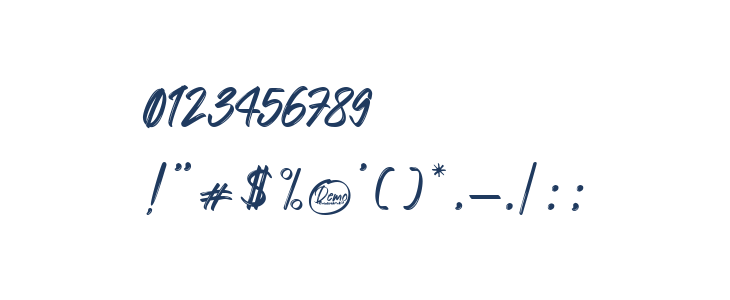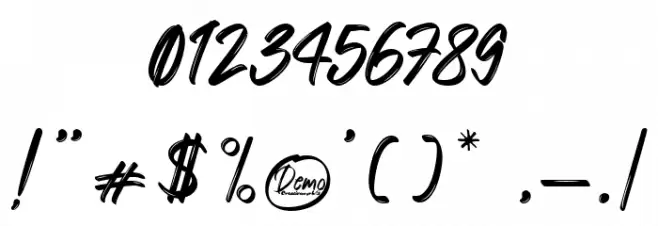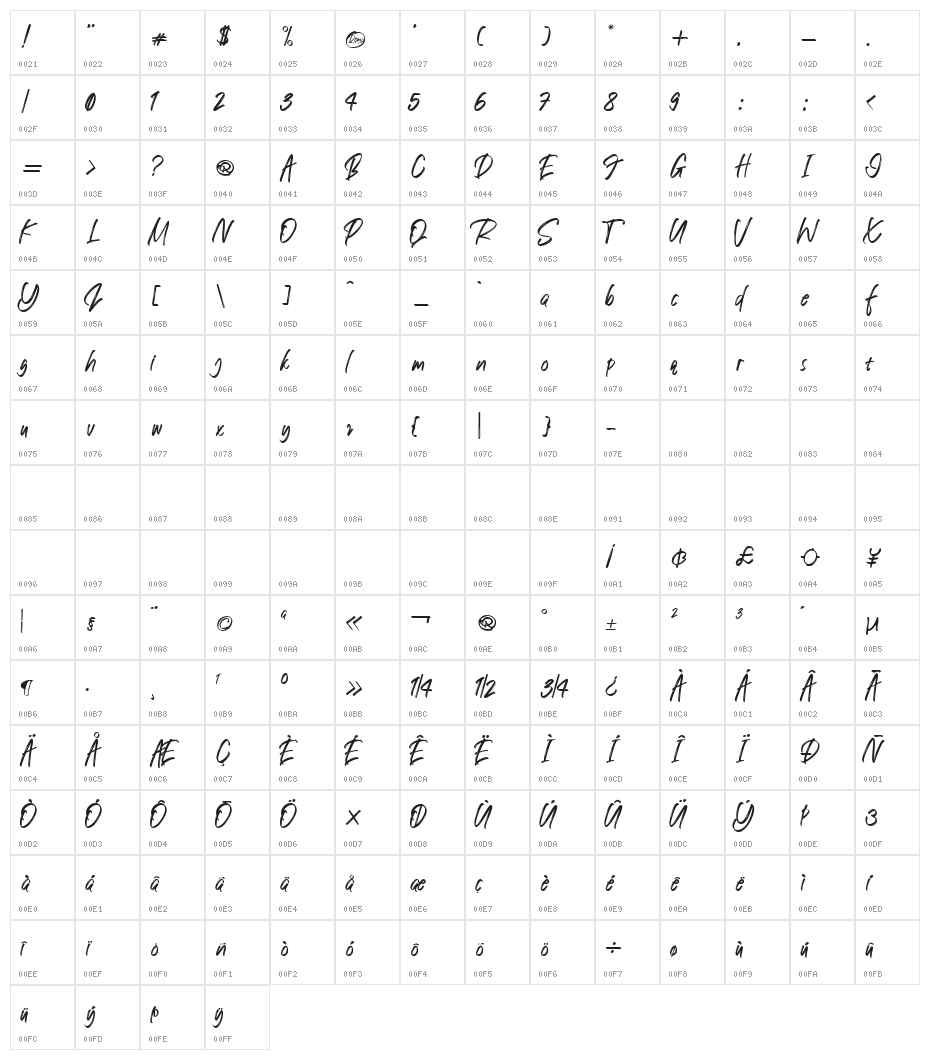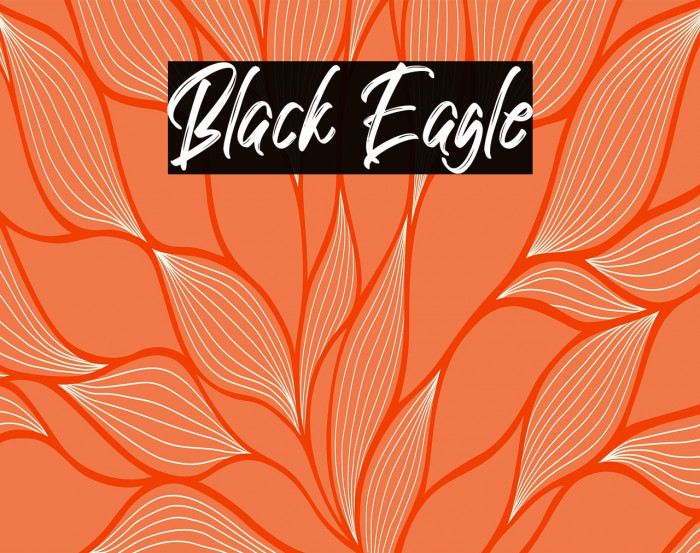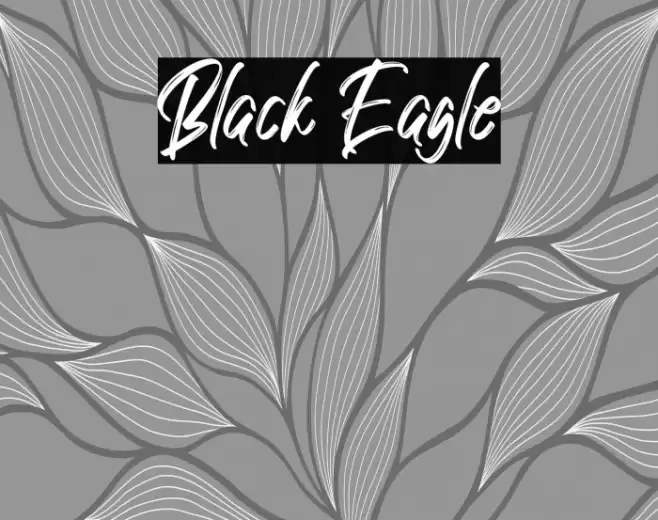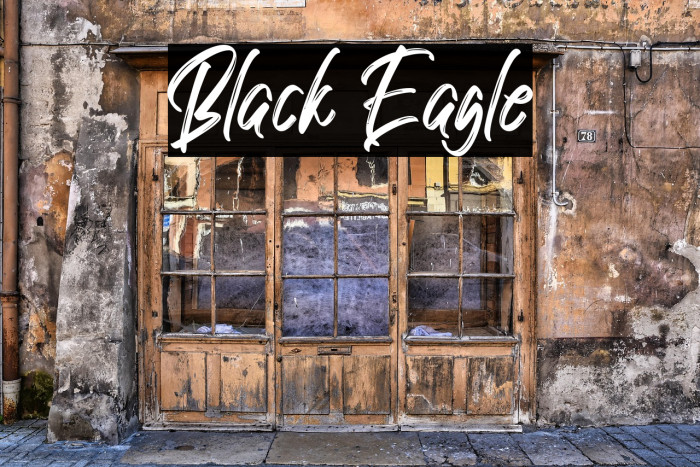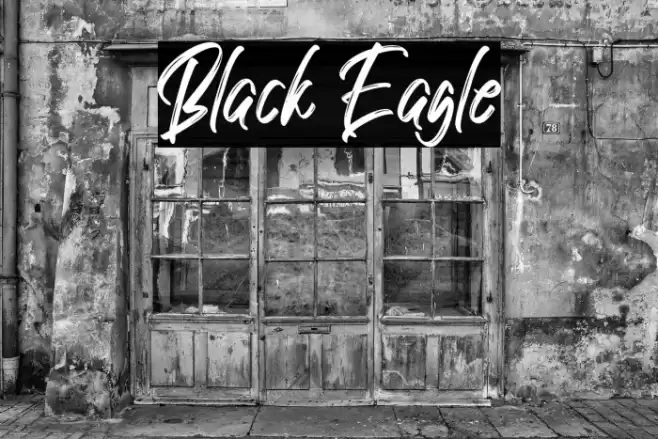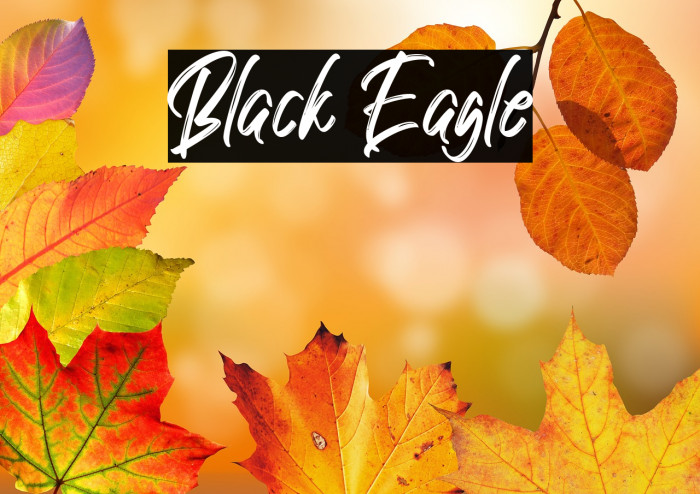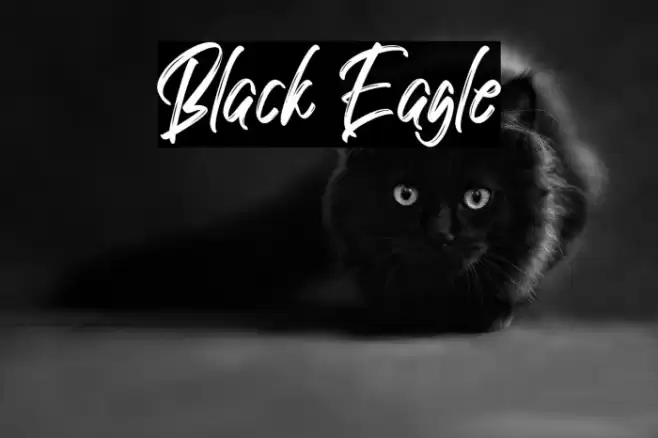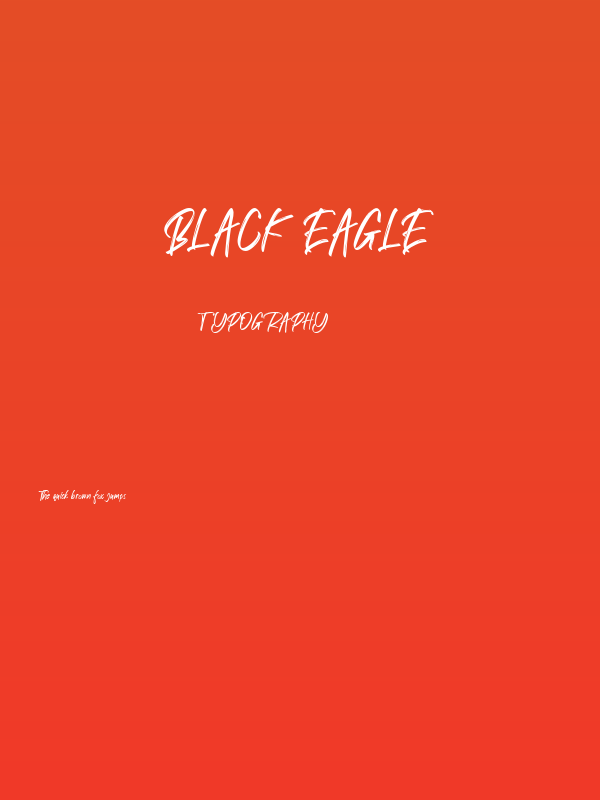
Black Eagle Font
Black Eagle Description
This font features a dynamic and expressive script style, characterized by its fluid and energetic strokes. The uppercase letters exhibit a bold and confident presence, with a slight slant that adds to the sense of motion. The lowercase letters maintain a consistent flow, complementing the uppercase with their smooth curves and connected forms. Numbers and special characters are designed with the same lively flair, ensuring a cohesive look across all text elements. The overall appearance is both modern and artistic, making it suitable for creative and eye-catching designs.